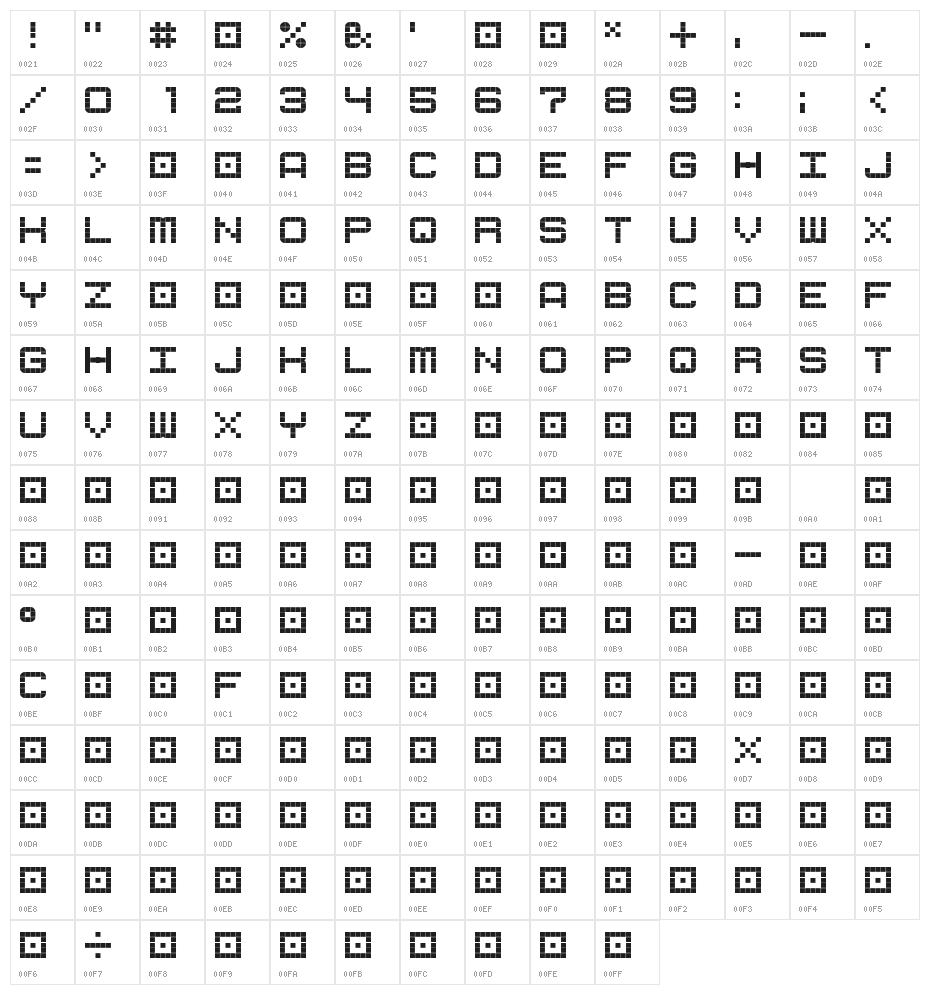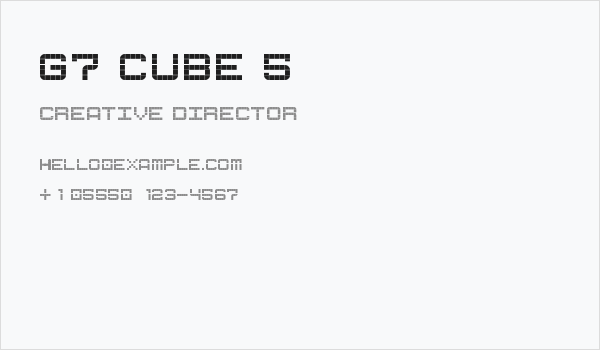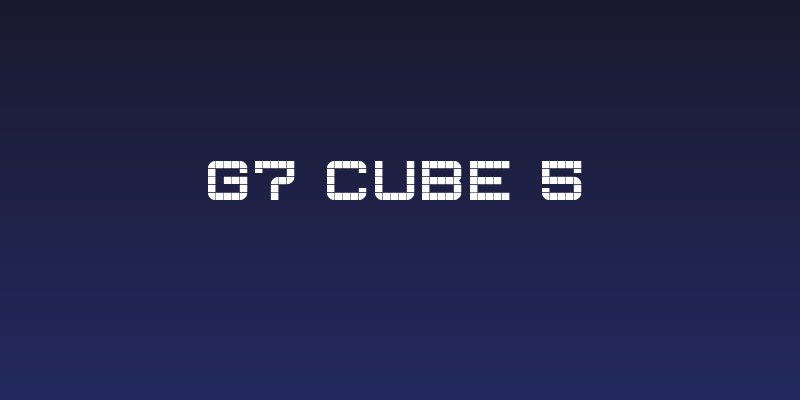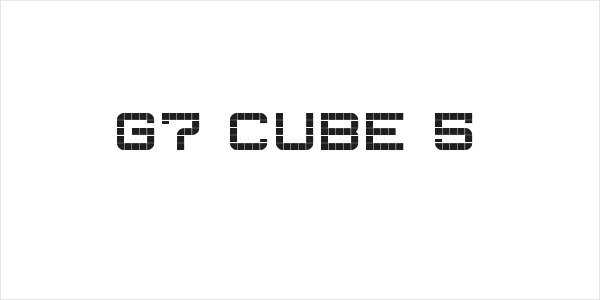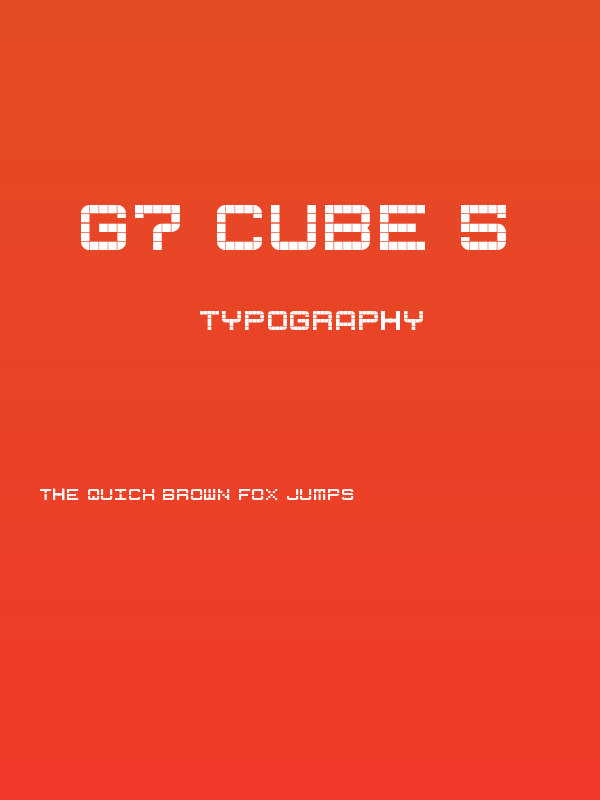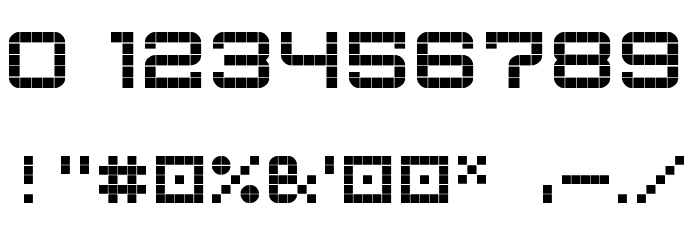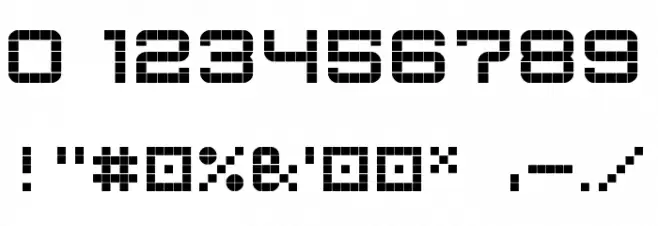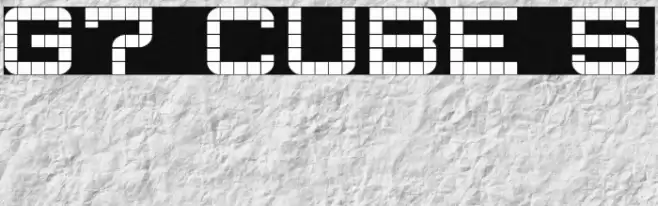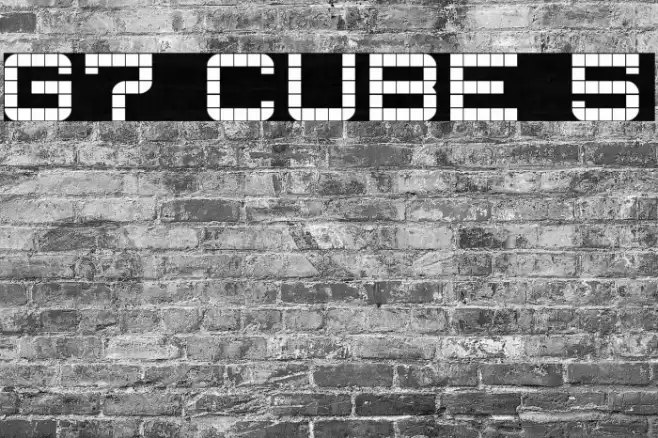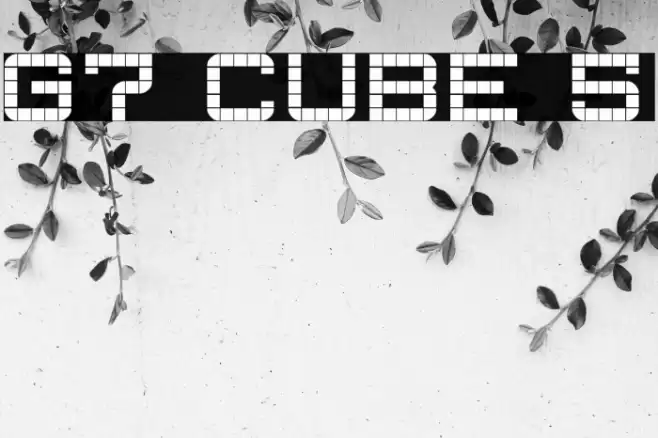
G7 Cube 5 Font
G7 Cube 5 Description
This font features a unique, pixelated design that mimics the appearance of digital displays or retro video game graphics. Each character is constructed from a grid of small squares, giving it a distinct, blocky look. The uniformity in the size of the squares across all characters creates a cohesive and structured appearance. Despite its geometric nature, the font maintains readability with clear distinctions between each letter and number. The style is reminiscent of early computer fonts, making it ideal for projects that aim to evoke a sense of nostalgia or a digital aesthetic.
| Overall Style | Retro, Digital |
| Use Case | Headlines, Logos, Digital Art |
| Proposed Projects | Ideal for video game design, digital art projects, retro-themed posters, and tech-related branding. |